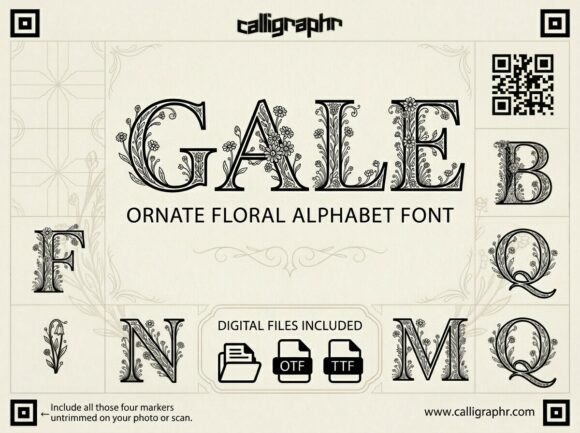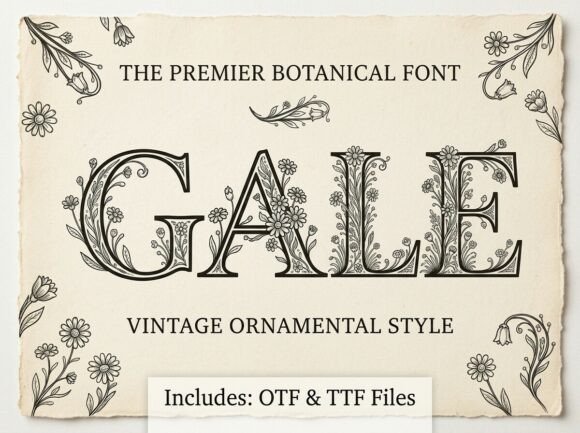
Introducing Gale Font: The Ultimate Decorative Display Font
Are you tired of using the same old fonts for your creative projects? Look no further than Gale Font, a stunning decorative display font designed to be the center of attention. With its unique artistic elements and strong visual personality, this font is perfect for creators who want to break away from the ordinary and make a statement.
What Makes Gale Font Special?
Gale Font is a versatile font that is perfect for bold headlines, artistic logos, and creative packaging. Its unique design ensures that it maintains a professional and polished finish, making it suitable for a wide range of applications. Whether you’re a designer, crafty DIY enthusiast, or entrepreneur, Gale Font is sure to elevate your creative projects to the next level.
Key Features of Gale Font
• Unique Artistic Elements: Gale Font features intricate and artistic elements that set it apart from other fonts. Each letter is carefully crafted to make a statement and grab attention.
• Strong Visual Personality: This font has a strong visual personality that is sure to make your creative projects stand out. Its bold and eye-catching design ensures that your message is conveyed with impact.
• Versatile: Gale Font is versatile enough for use in a variety of applications, including bold headlines, artistic logos, and creative packaging.
• Professional and Polished Finish: Despite its bold and artistic design, Gale Font maintains a professional and polished finish, making it suitable for use in a wide range of creative projects.
⚠️ IMPORTANT NOTE BEFORE PURCHASE: Please be aware that Gale Font is an ALL-CAPS (Uppercase Only) display typeface. This means that it does not include lowercase letters. It is specifically designed for high-impact headlines, logos, and decorative initials where every letter is a work of art.
Why Choose Gale Font?
There are many reasons why Gale Font is the perfect choice for designers and crafters. Here are just a few:
• Add a Touch of Elegance: With its unique artistic elements and strong visual personality, Gale Font adds a touch of elegance and sophistication to any creative project.
• Make a Statement: This font is designed to make a statement and grab attention. Whether you’re creating a bold headline, artistic logo, or creative packaging, Gale Font ensures that your message is conveyed with impact.
• Perfect for Creative Projects: Gale Font is perfect for a wide range of creative projects, including branding, advertising, packaging, and more.
• Use for Headlines: Gale Font is perfect for bold headlines and titles. Use it to grab attention and make a statement.
• Create Artistic Logos: With its unique artistic elements and strong visual personality, Gale Font is perfect for creating artistic logos that stand out.
• Add a Touch of Elegance to Packaging: Use Gale Font to add a touch of elegance and sophistication to your packaging designs.
In conclusion, Gale Font is a stunning decorative display font that is perfect for creators who want to break away from the ordinary and make a statement. With its unique artistic elements, strong visual personality, and versatility, this font is sure to elevate your creative projects to the next level. So why wait? Purchase Gale Font today and start creating stunning designs that grab attention and make a lasting impression.